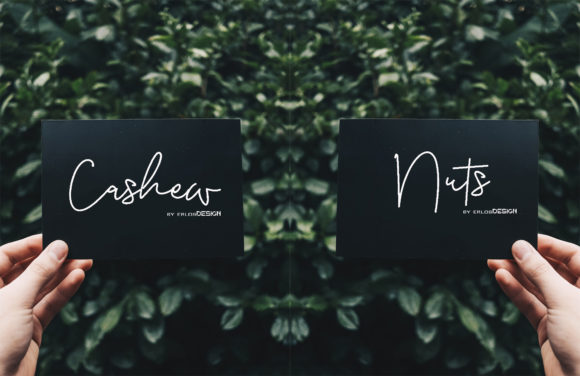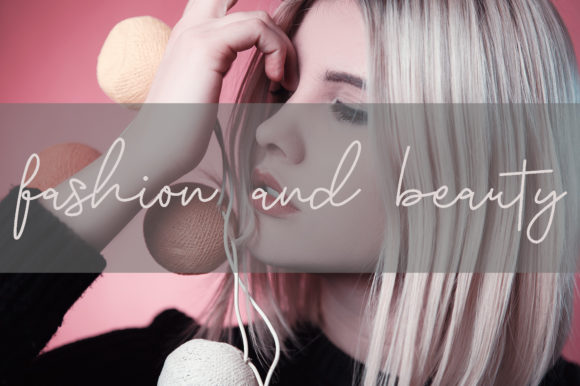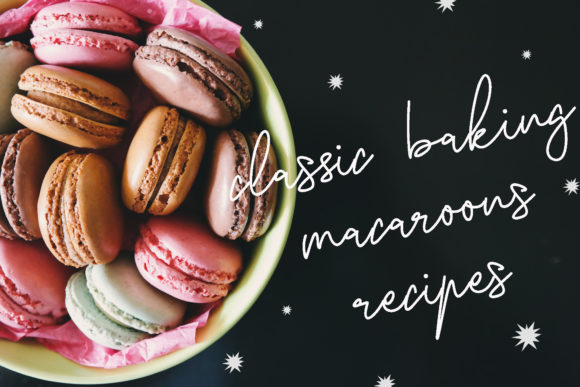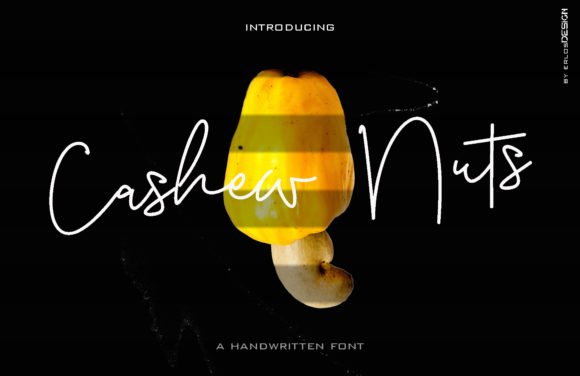
Introduction to Cashew Nuts Font
Cashew Nuts is a flowing and elegant handwritten font.
Its casual charm makes it appear wonderfully down-to-earth, readable and, ultimately, incredibly versatile This versatility means that this font can be used for a wide range of designs, from stationary to greeting cards.
Cashew Nuts Font offers exceptional quality and versatility, making it a valuable addition to your design toolkit. Whether you’re creating for personal projects or commercial use, Cashew Nuts Font delivers professional results.